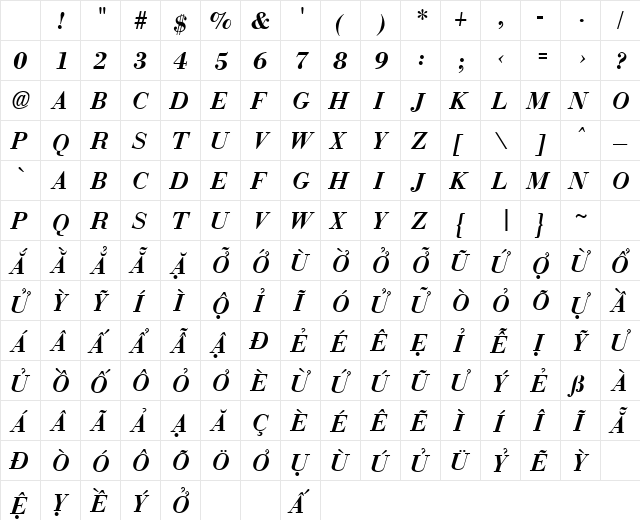
VPS Con Son Hoa Bold Italic Free Font
VPS Con Son Hoa Bold Italic
Design Context for VPS Con Son Hoa
VPS Con Son Hoa is a composed and adaptable typeface that performs quietly and consistently across a wide range of design contexts. The slanted form adds forward momentum and visual energy. Its bold stroke weight gives it real presence on the page.
Pro Tip: Use VPS Con Son Hoa for emphasis, pull quotes, and subheadings where its slanted energy can add rhythm to the layout.